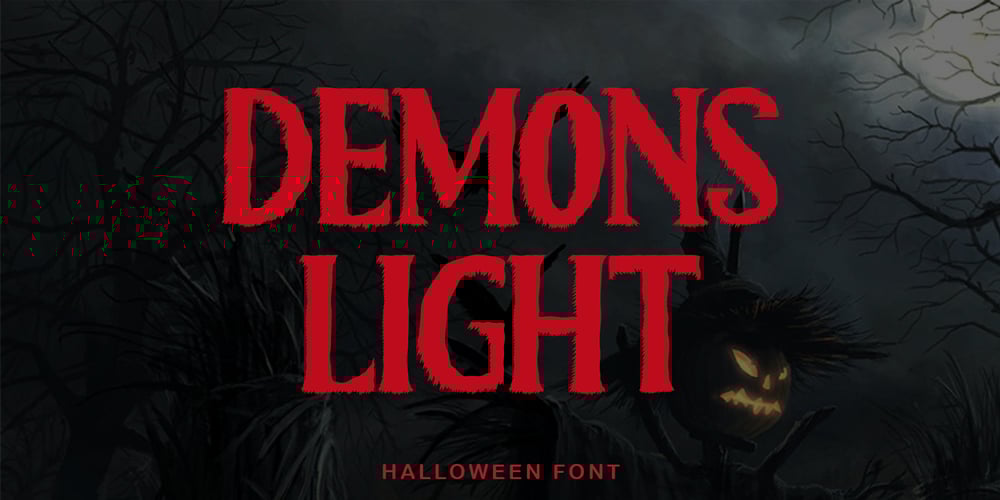
Demons Light
Demons Light font
Demons Light Font Family was designed by Isroni Yoga Prasetya and published by Yoga Letter. Demons Light contains 1 styles and family package options. “Demons Light” is a halloween themed font that will add horror and excitement to your Halloween party. This font is very easy to use because it has been specially designed. “Demons Light” is also equipped with multilingual support, numeral and punctuations, ligatures, uppersace, and lowercase. So that this font is very complete and is expected to be able to help your work or Halloween moment.